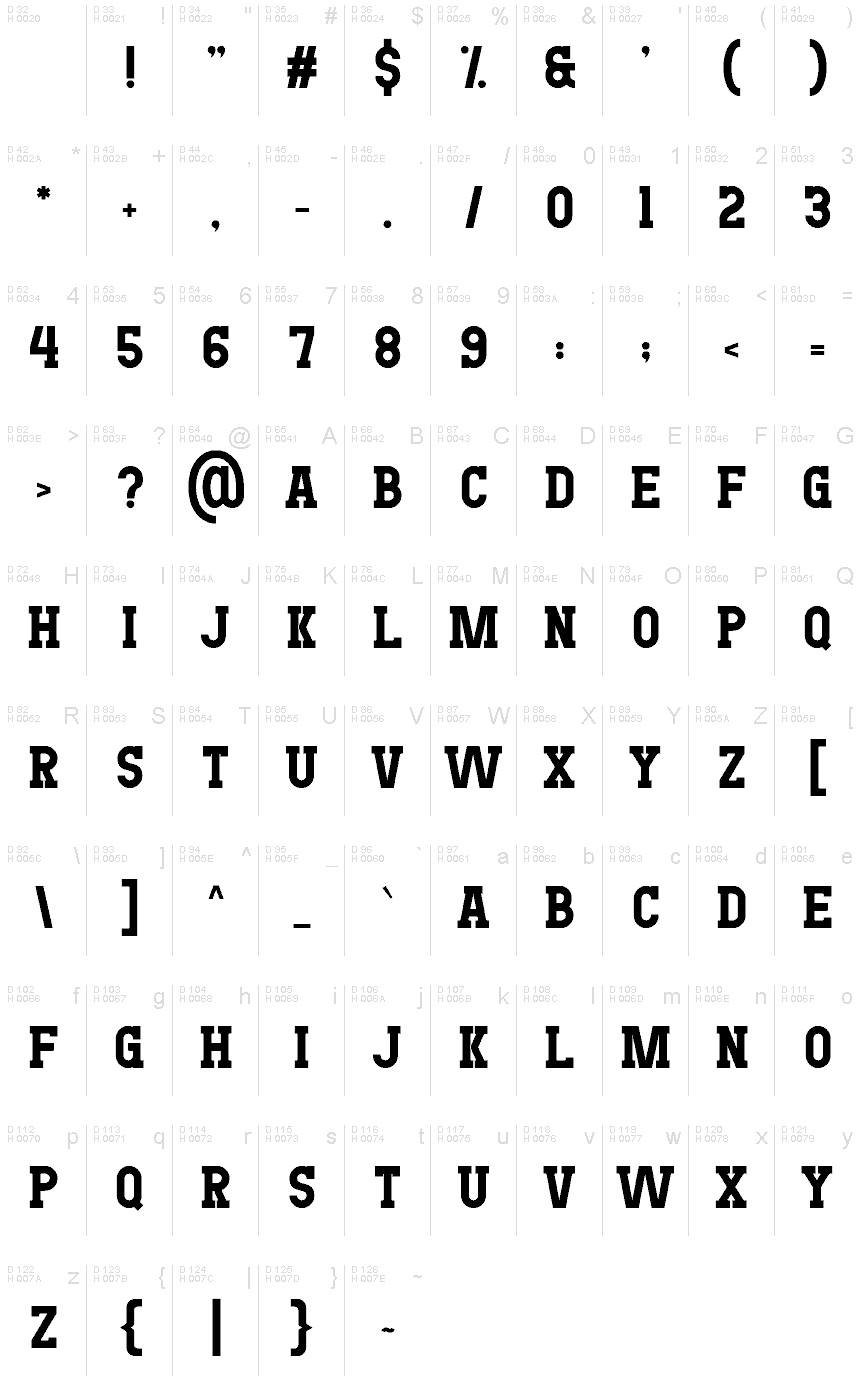
TURNING LEAVES
Turning Leaves font is a free serif font from Gilang Ternadho of Maikohatta with bold weight and condensed width. A traditional, authoritative, structured look makes it perfect for classic and vintage-inspired projects aiming to add that authentic touch.
Use this beautiful typeface when preparing book covers, magazines, newspapers, advertisements, vehicle decoration, t-shirts signage or restaurant menus. It can also be great for books or novels and movie productions or posters that are inspired by past eras. Its authenticity will enhance all your branding identities as well such as logo designs along with other visual elements.